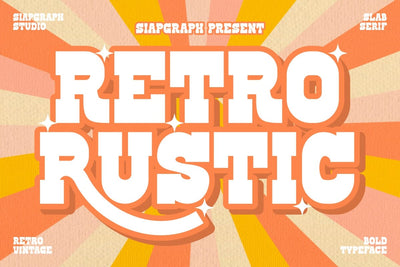
Retro Rustic - Retro Slab Serif Font
Retro Rustic is a bold condensed and classic retro slab serif font with a unique and modern twist. Its distinctive character makes it perfect for creating eye-catching quotes and stickers. It's also ideal for mockups of apparel, mugs, tumblers, and tote bags, adding a touch of nostalgia to your designs.